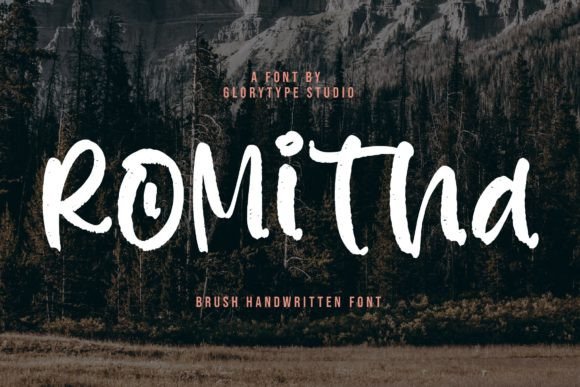
Step into the enchanting world of Romitha's calligraphic embrace, where artistry meets elegance. This mesmerizing script font, meticulously crafted by the skilled hands of Glorytype Studio, is a testament to the power of handwritten beauty.
With every stroke and flourish, Romitha captivates the senses, inviting you to create designs that whisper of sophistication and timeless allure. As you explore its diverse range of glyphs, you'll discover a symphony of shapes that dance harmoniously, adding a touch of magic to every project you undertake.
Whether you're crafting a captivating logo that exudes a touch of luxury or designing a charming invitation card that reflects the joy of a special occasion, Romitha is your perfect companion. Its versatility knows no bounds, making it an indispensable tool for designers, bloggers, and creatives alike.
Immerse yourself in the world of fashion, where Romitha's graceful curves and sweeping strokes embrace the essence of style and sophistication. Its ability to convey emotions through its elegant form makes it an ideal choice for bloggers who seek to captivate their audience with captivating imagery that speaks to the heart.
As you embark on your creative journey with Romitha, you'll discover a font that transcends the ordinary, elevating your designs to new heights of beauty and distinction. Every letter, every word, and every sentence crafted with Romitha becomes a masterpiece, a testament to the enduring power of artistic expression.